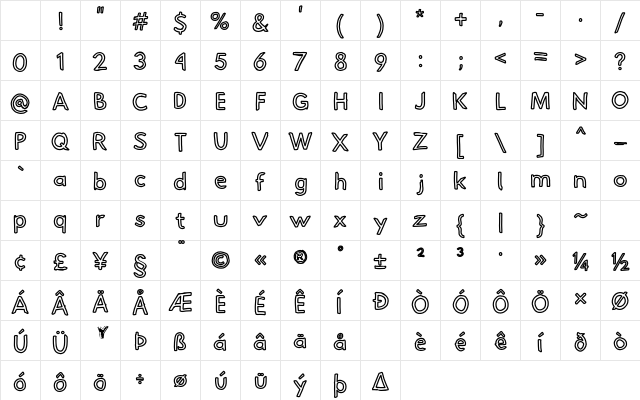
Complete Hussar Pisanka Out glyph index. Displaying only characters natively supported by Hussar Pisanka Out font.
Hussar Pisanka is a composed and adaptable typeface that performs quietly and consistently across a wide range of design contexts.